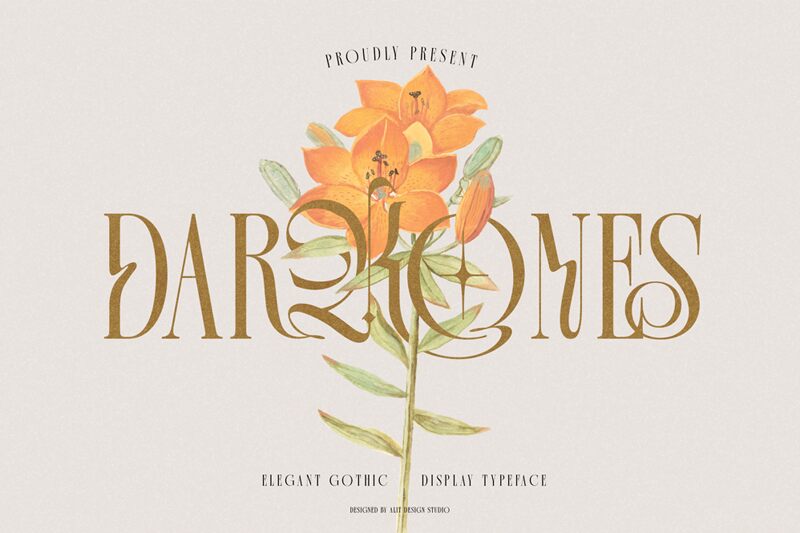
Darkones font by Alit Design is a free gothic-inspired typeface that captures a sense of elegance and mystery. Sophisticated yet ornate, Darkones pairs an intricate approach with a stylish design that has a vintage feel and historical influence. Artistic flourishes give this decorative font life and character as a whole.
This elegant gothic typeface can be used to bring refinement and adornment to a range of design projects. Stylish invitations, decorations, branded products, greeting cards, and website titles are just a glimpse of what can be achieved. In addition, Darkones holds great potential for digital and print advertising across posters, books, and signage.